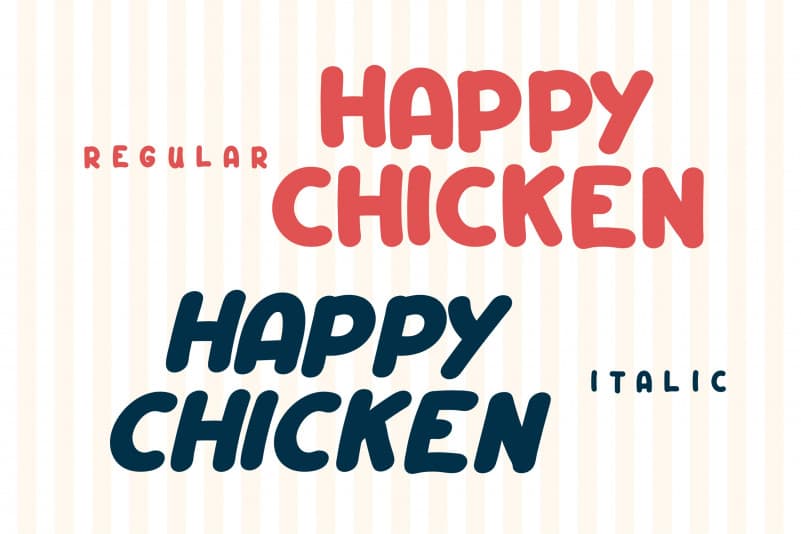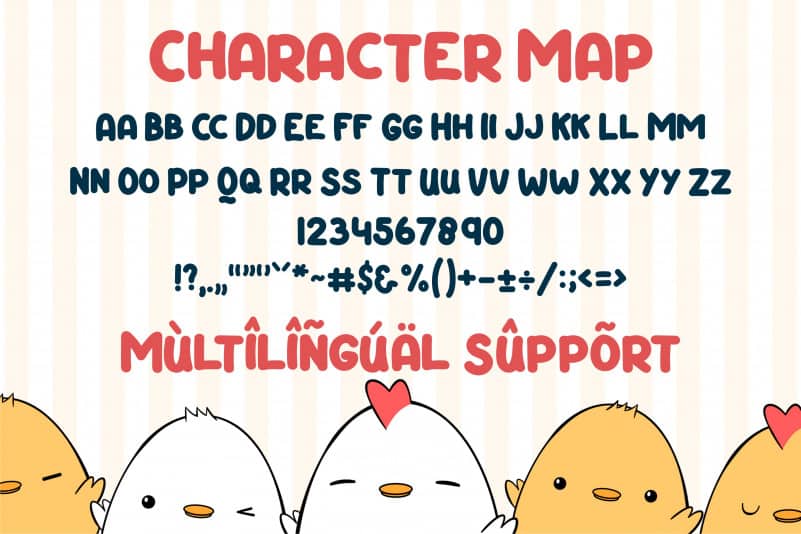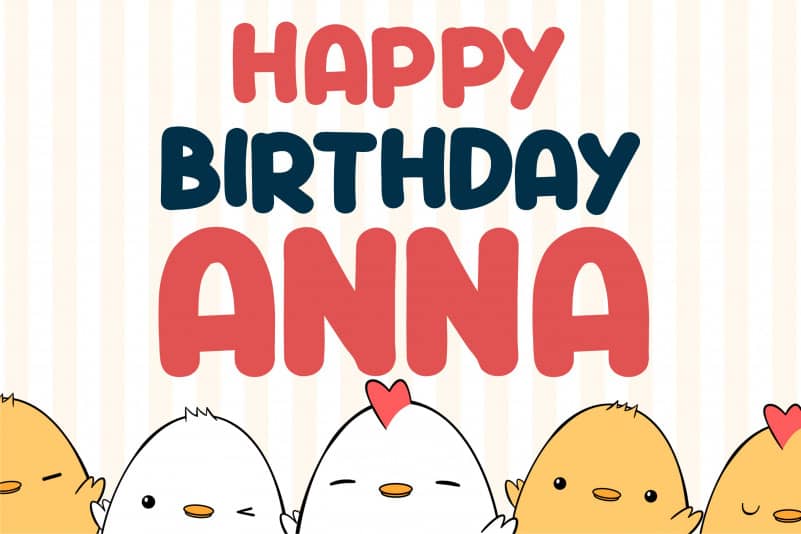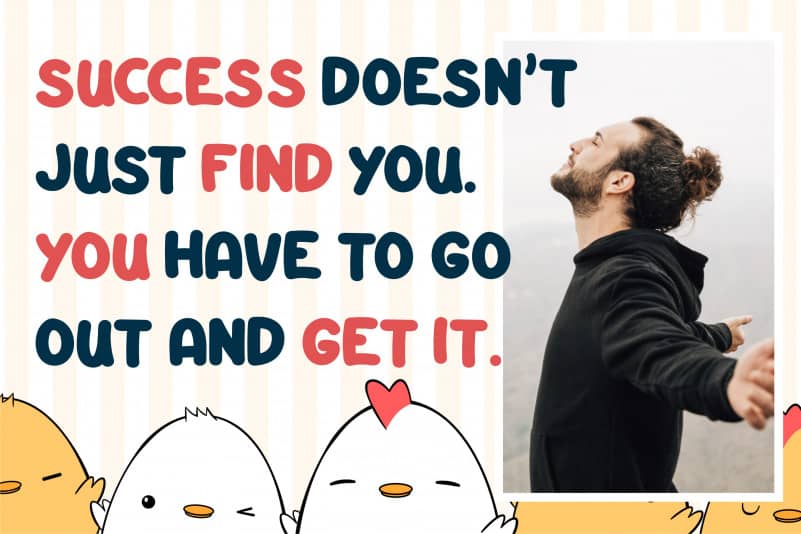
Happy Chicken Display Font
Happy Chicken Display Font is a cute yet thick lettered display font. This font is perfect for children themed designs, especially when combined with bright colors.